Cute Fonts for Branding: Typography That Feels Friendly and Memorable
Define What “Cute” Means for the Brand
The best cute fonts for branding do more than make a logo look cheerful. They communicate a specific personality that should match the product, audience, and customer experience.
A bakery may need soft, dough-like lettering that suggests sweetness. A pet-food company can use chunky cartoon typography to create warmth and friendliness. Children’s brands often benefit from energetic forms and irregular details, while a lifestyle business may prefer a cleaner interpretation of cuteness.
Choose three personality words before selecting the font, such as:
- Sweet, warm, and comforting
- Playful, energetic, and curious
- Friendly, quirky, and handmade
- Romantic, soft, and expressive
- Seasonal, cheerful, and imaginative
This keeps the identity focused instead of combining every pastel color, mascot, bubble letter, and decorative symbol at once.
What Makes a Font Suitable for Cute Branding?
Cute typography commonly uses rounded corners, thick strokes, soft curves, irregular proportions, hand-drawn details, or cartoon-inspired silhouettes. These characteristics make a business feel less formal and more approachable.
The strongest system usually combines:
Display font: Logo, product name, packaging headline, or campaign phrase
Supporting font: Descriptions, prices, ingredients, instructions, and website copy
Accent style: Decorative alternate, illustration, outline, or contrasting color
A playful typeface can create recognition, but practical information still needs to remain easy to read. This is especially important for packaging, ecommerce, and products purchased by parents or other adult decision-makers.
Using Cute Fonts Across Brand Touchpoints
For logos, test the actual business name in uppercase, lowercase, horizontal, and stacked arrangements. Correct the spacing manually and confirm that the wordmark remains recognizable in one color.
On packaging, use cute typography for the brand and flavor name, then keep ingredients, quantity, care instructions, and required information in a simpler companion. For social media, short phrases such as Sweet New Drop, Made for Happy Days, or Tiny Treat, Big Smile allow expressive letters to remain large enough for mobile viewing.
A controlled color system also helps. Pastels create softness, bright colors add youthful energy, and black-and-white styling can make a rounded font feel more modern and design-led.
1. Happy Dough Food Font
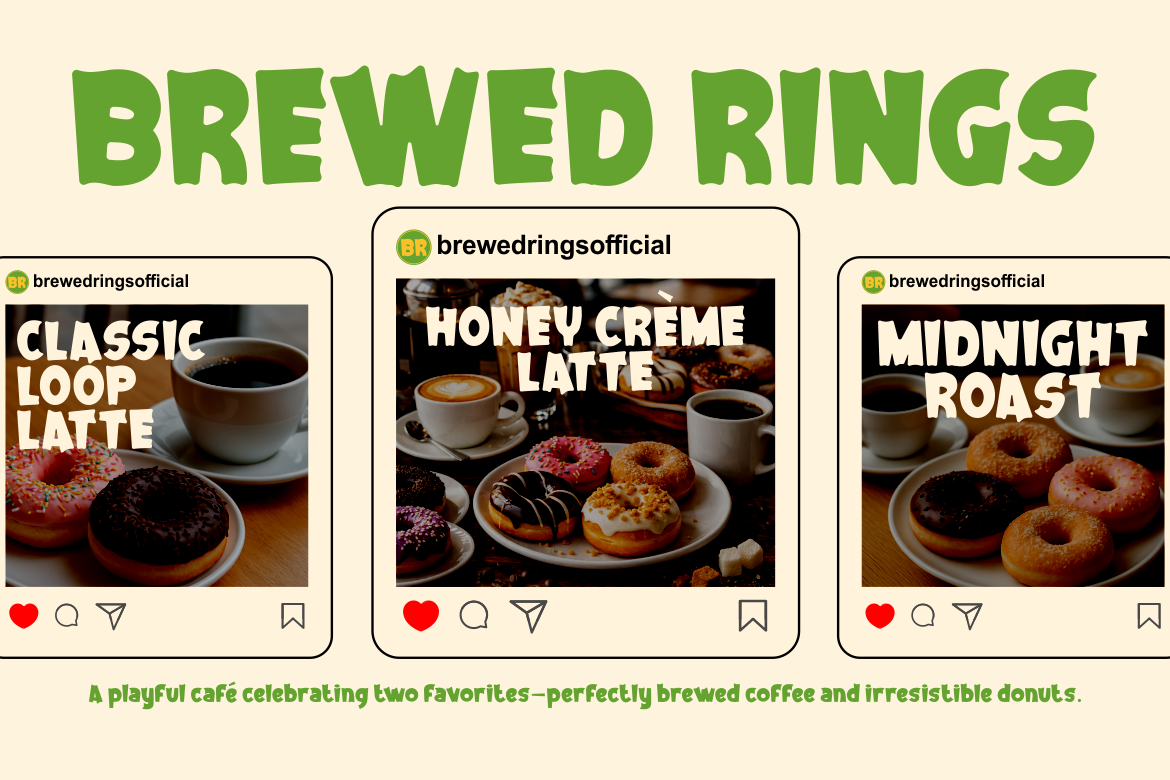
Happy Dough uses chunky letters, substantial weight, soft curves, and slightly irregular forms that resemble hand-shaped dough. Its bold structure remains visible on packaging and social graphics, while the rounded personality naturally supports sweet, comforting, and family-friendly branding.
PROS: Strong shelf visibility, soft curves, friendly personality, memorable food-brand character.
BEST FOR: Bakeries, doughnut shops, cafés, dessert bars, food trucks, menu boards, stickers, and snack packaging.
2. Whisker Bites Animal Food Font
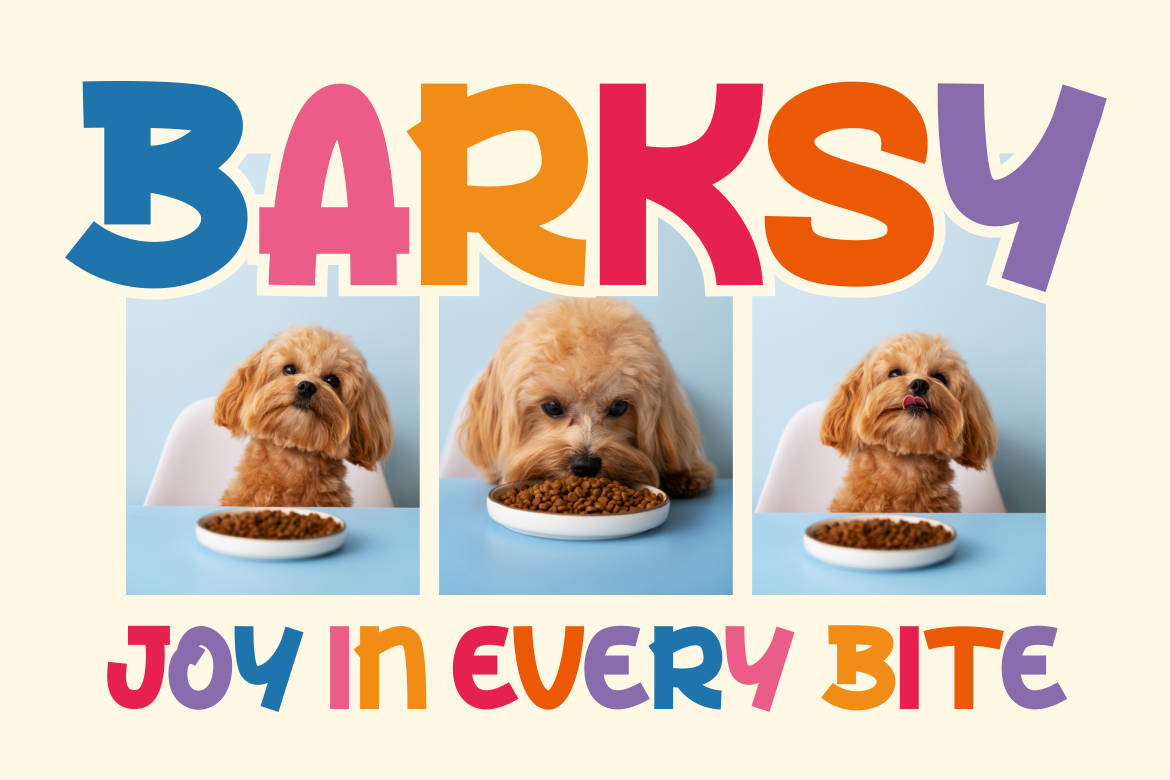
Whisker Bites combines thick strokes, rounded corners, balanced spacing, and cartoon-inspired proportions. Its handcrafted energy is especially useful for businesses that need animal-focused branding to feel welcoming rather than overly clinical or corporate.
PROS: Chunky construction, smooth readability, cheerful tone, strong pet-brand relevance.
BEST FOR: Pet food, animal shops, grooming services, pet cafés, veterinary promotions, toy labels, and children’s animal products.
3. Fun Kids Playful Font
Fun Kids is a playful display face supported by alternate characters and an additional decorative version, giving designers more options for building expressive titles without introducing unrelated fonts. Its cheerful style is particularly effective when the identity should communicate imagination, activity, and childhood happiness.
4. Cute Snow Quirky Winter Font
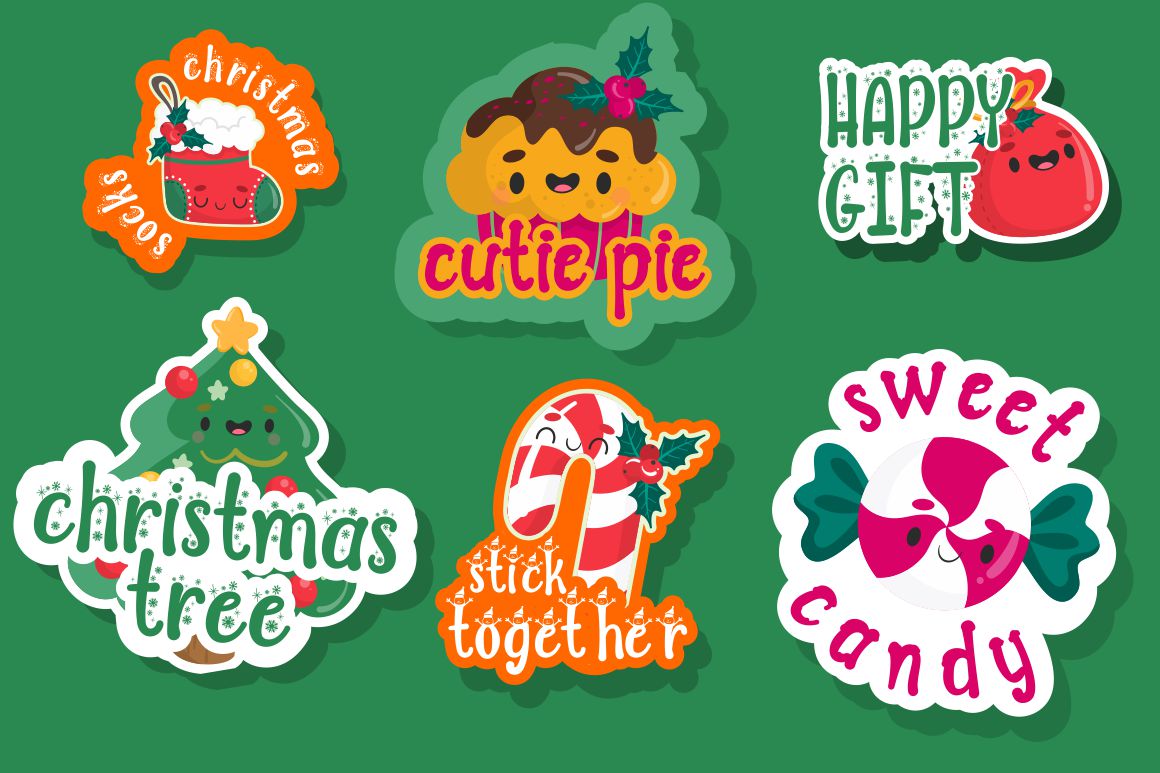
Cute Snow provides seven coordinated styles featuring different winter-inspired ornaments, including snow caps, snowmen, frozen details, melting ice, snow piles, and sparkling decorations. This variety allows one campaign to create several related title treatments while maintaining a consistent seasonal identity.
PROS: Seven themed styles, strong seasonal storytelling, decorative flexibility, multilingual support.
BEST FOR: Winter products, Christmas campaigns, greeting cards, children’s apparel, holiday packaging, stickers, posters, and seasonal social content.
5. Cute Love Story Quirky Love Font
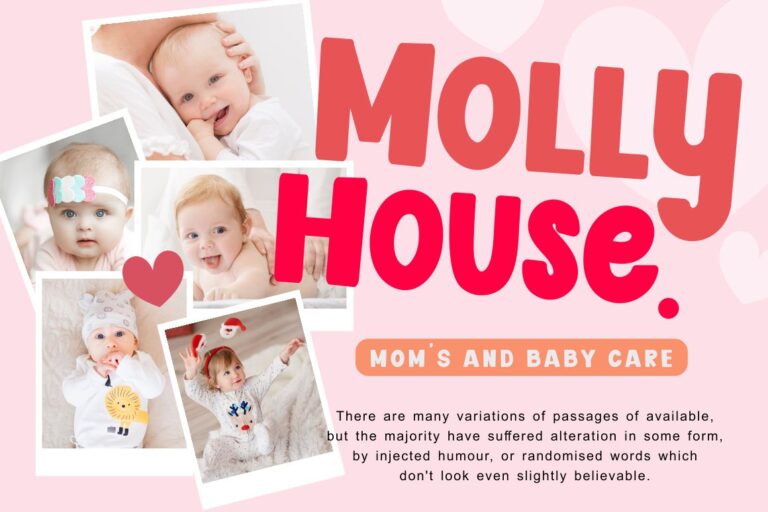
A cute brand should not simply look adorable. It should feel welcoming, recognizable, and professionally designed.